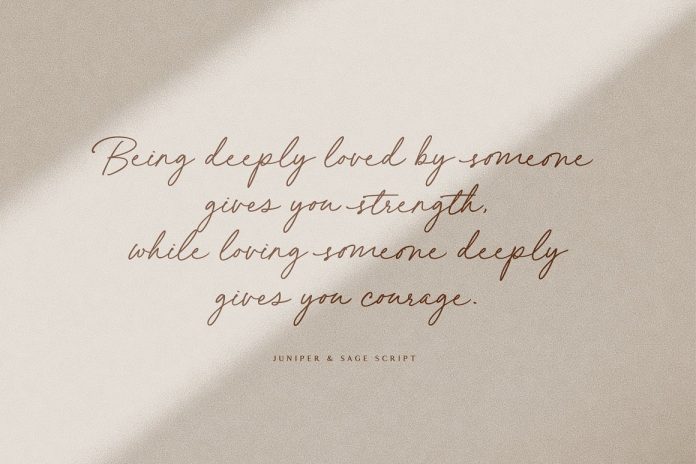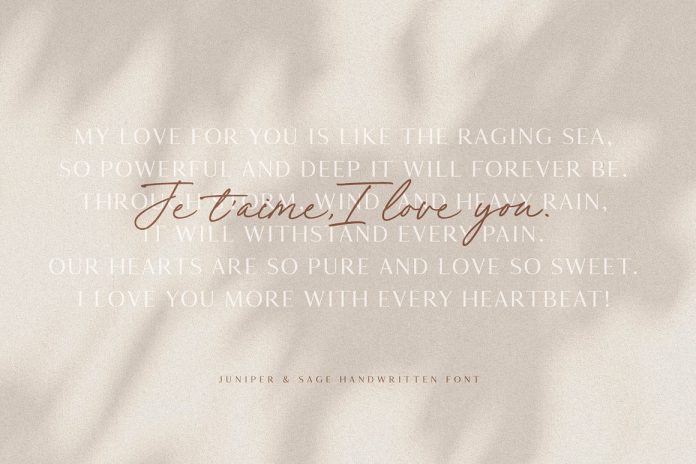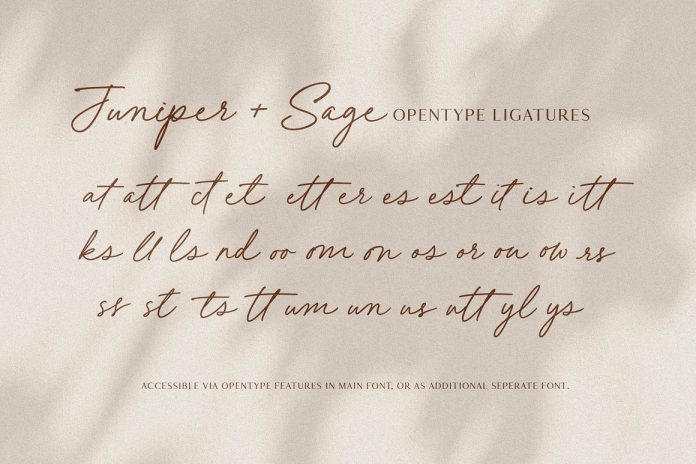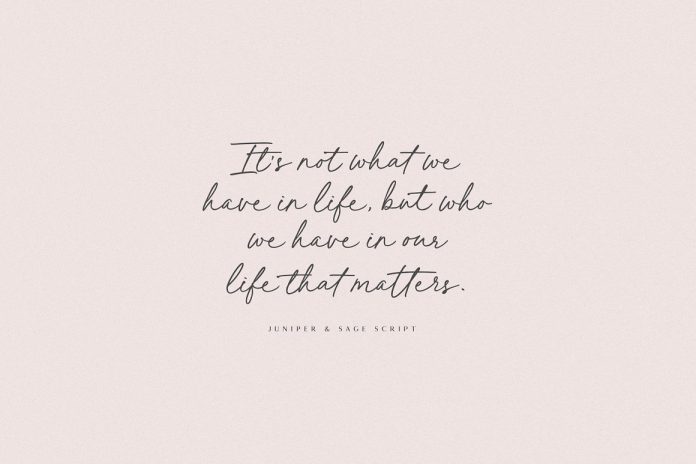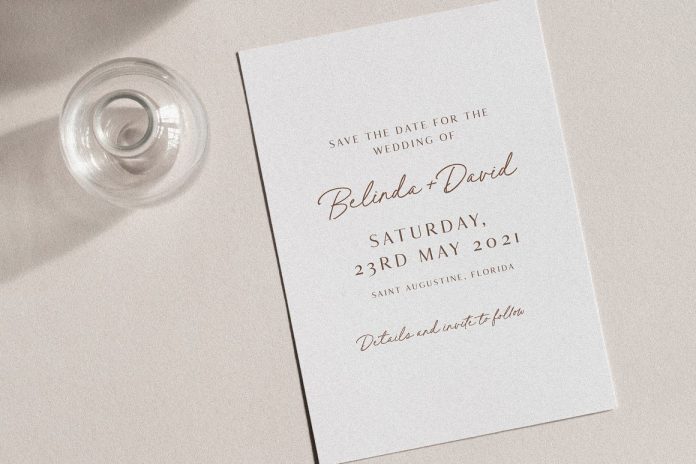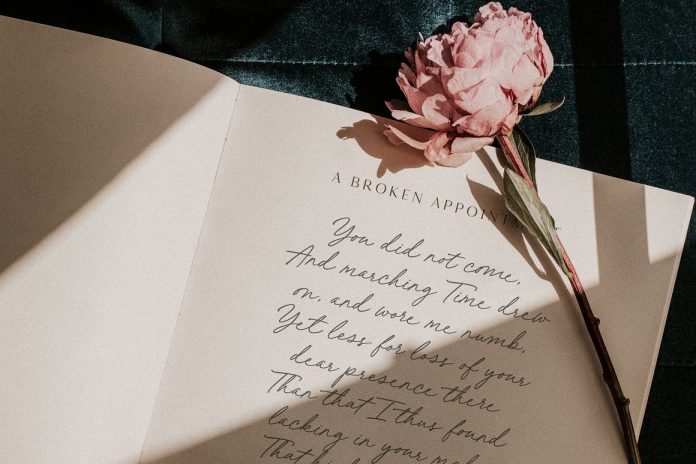
Juniper and Sage, a chic and classy script font designed by Nicky Laatz.
Juniper and Sage is a must-have for everyone who loves elegant handwritten fonts. Designed and published by Nicky Laatz, the typeface comes with three subtle variants—each is characterized by its own unique feel due to different slants. Juniper and Sage’s upright version looks slightly more upbeat and casual while the slanted version offers a more elegant touch.
This beautiful handwriting style is a great choice for elegant branding projects as well as wedding stationery, romantic book covers, classy packaging design, album covers, quotes, lovely greeting cards, social media posts, just to name a few. To learn more, just click on one of the following links.